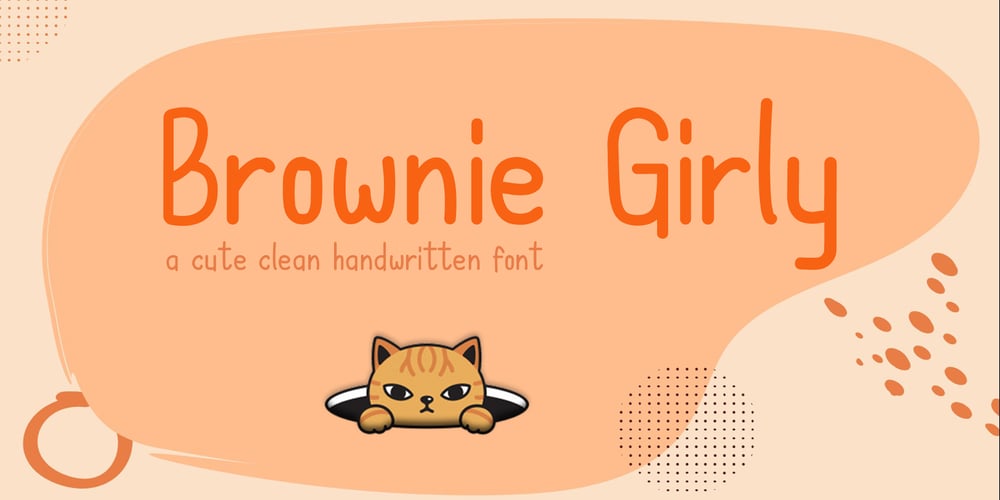
Brownie Girly Font Family was designed by Oki Candra Setiawan and published by OCSstudio. Brownie Girly contains 1 styles and family package options. The elegant and cute Brownie Girly font was inspired by children’s handwriting and is very suitable for book covers, magazine covers, packaging products, birthday gifts, and more.